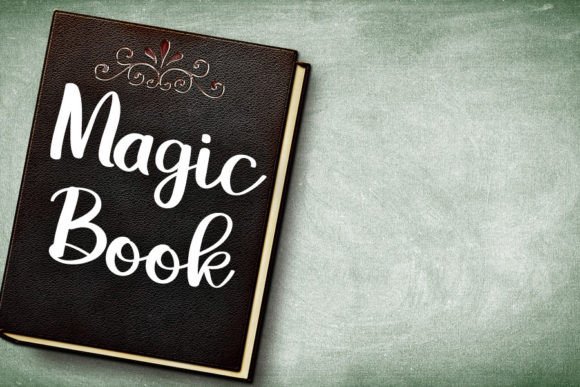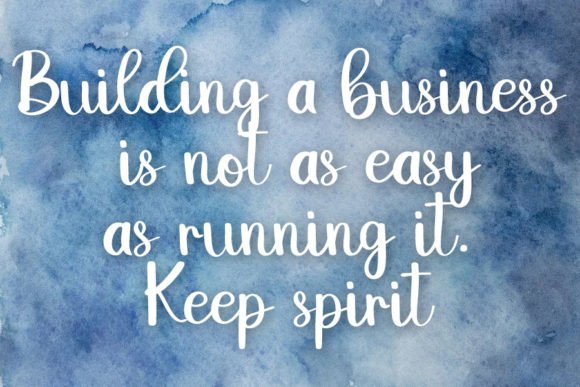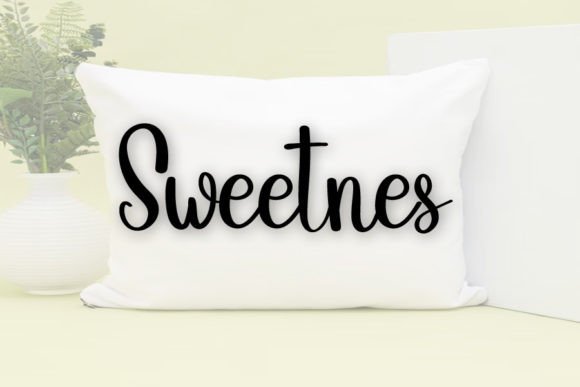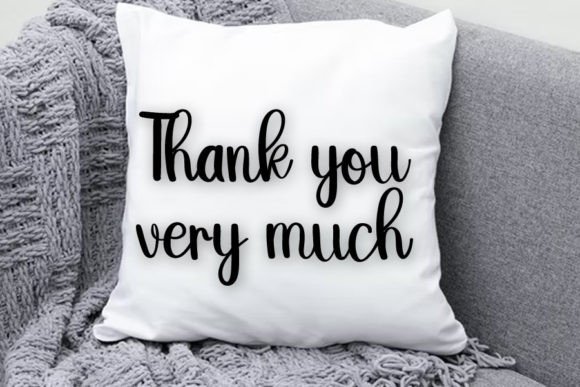
About Filling Font
Filling is a rejuvenating and aesthetically pleasing font that proves highly versatile for a myriad of design purposes. Whether you’re working on YouTube banners, cover logo mockups, wedding invitations, ID cards, flyers, or crafts, Filling is poised to elevate your designs. Its simplicity and uniqueness make it a standout choice for enhancing various creative projects.
This font’s versatility lends itself well to a wide array of design applications, allowing you to seamlessly integrate it into different visual contexts. From the dynamic world of YouTube banners to the refined elegance of wedding invitations, Filling adapts effortlessly, adding a touch of freshness and beauty to your creations.
Utilizing Filling in your designs not only enhances their aesthetic appeal but also contributes to the progress and development of your business. The font’s fresh and modern style communicates a sense of innovation, making it a valuable asset for businesses looking to stay current and visually appealing to their audience.
The simplicity of Filling is a key feature, ensuring that your message is conveyed with clarity and impact. Its unique characteristics add a distinctive touch, setting your designs apart and making them memorable.
In essence, Filling goes beyond being a font; it’s a design tool that holds the potential to propel your business forward. Its fresh and beautiful qualities, combined with simplicity and uniqueness, make Filling an excellent choice for designers aiming to create impactful and visually appealing content across a spectrum of applications.